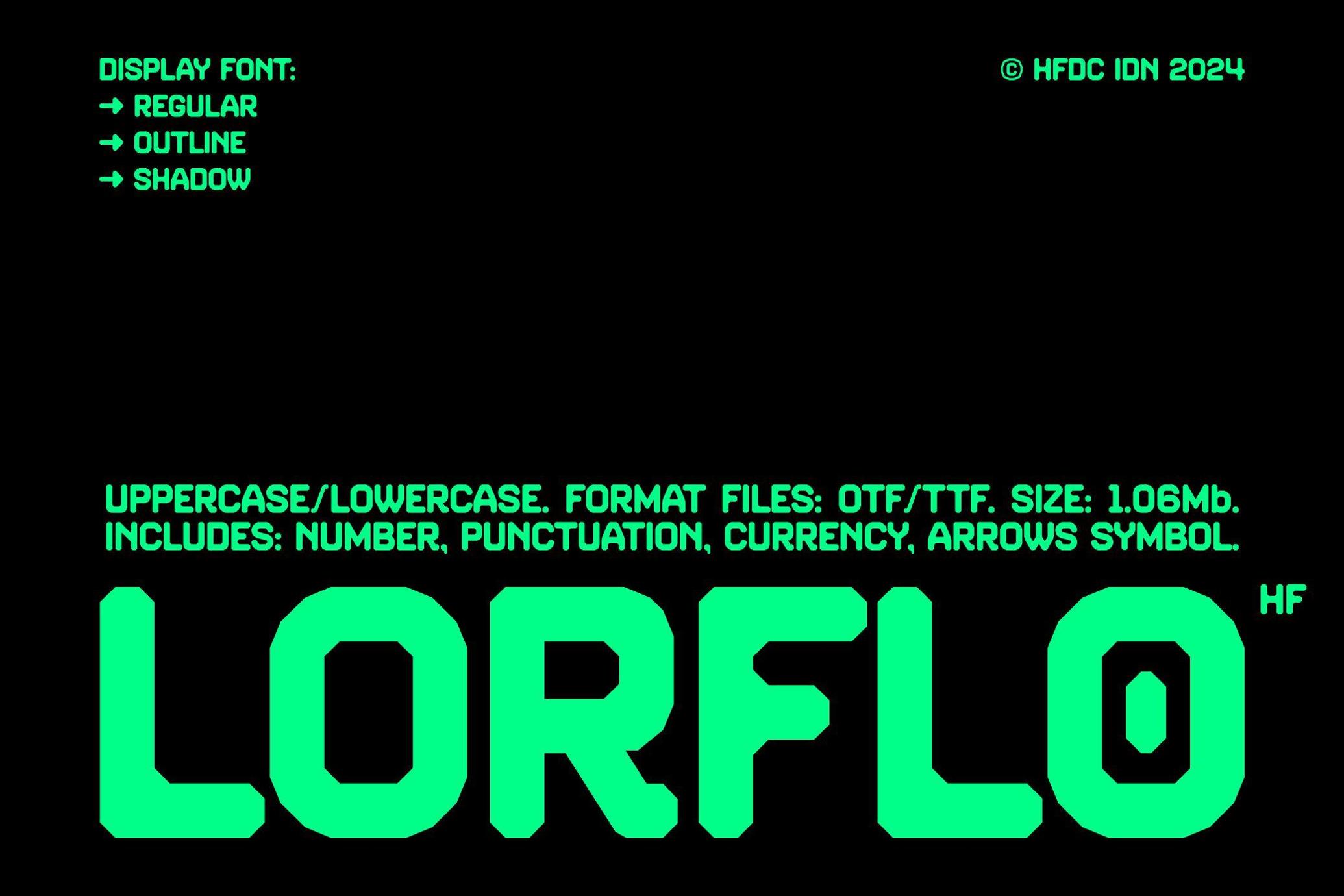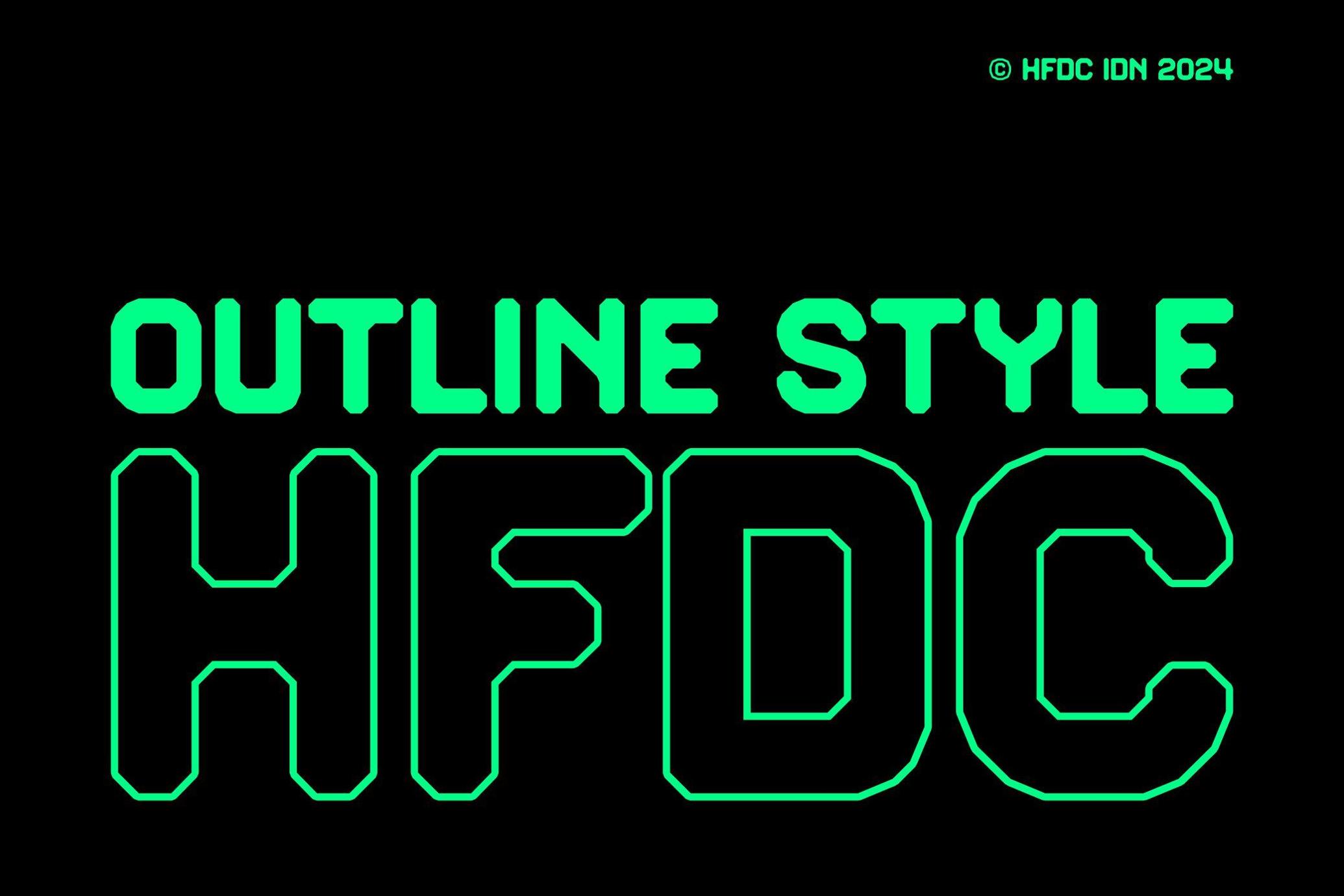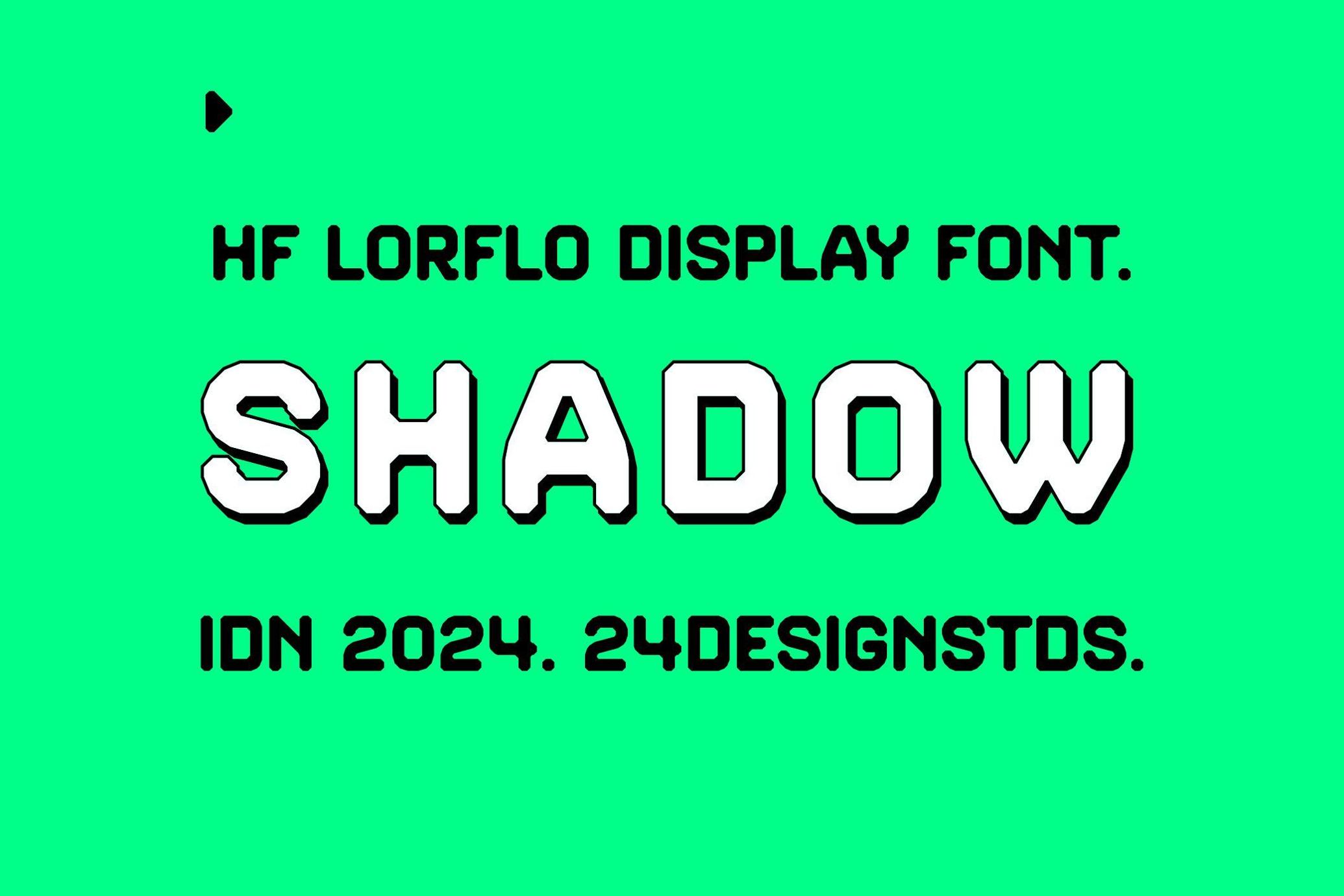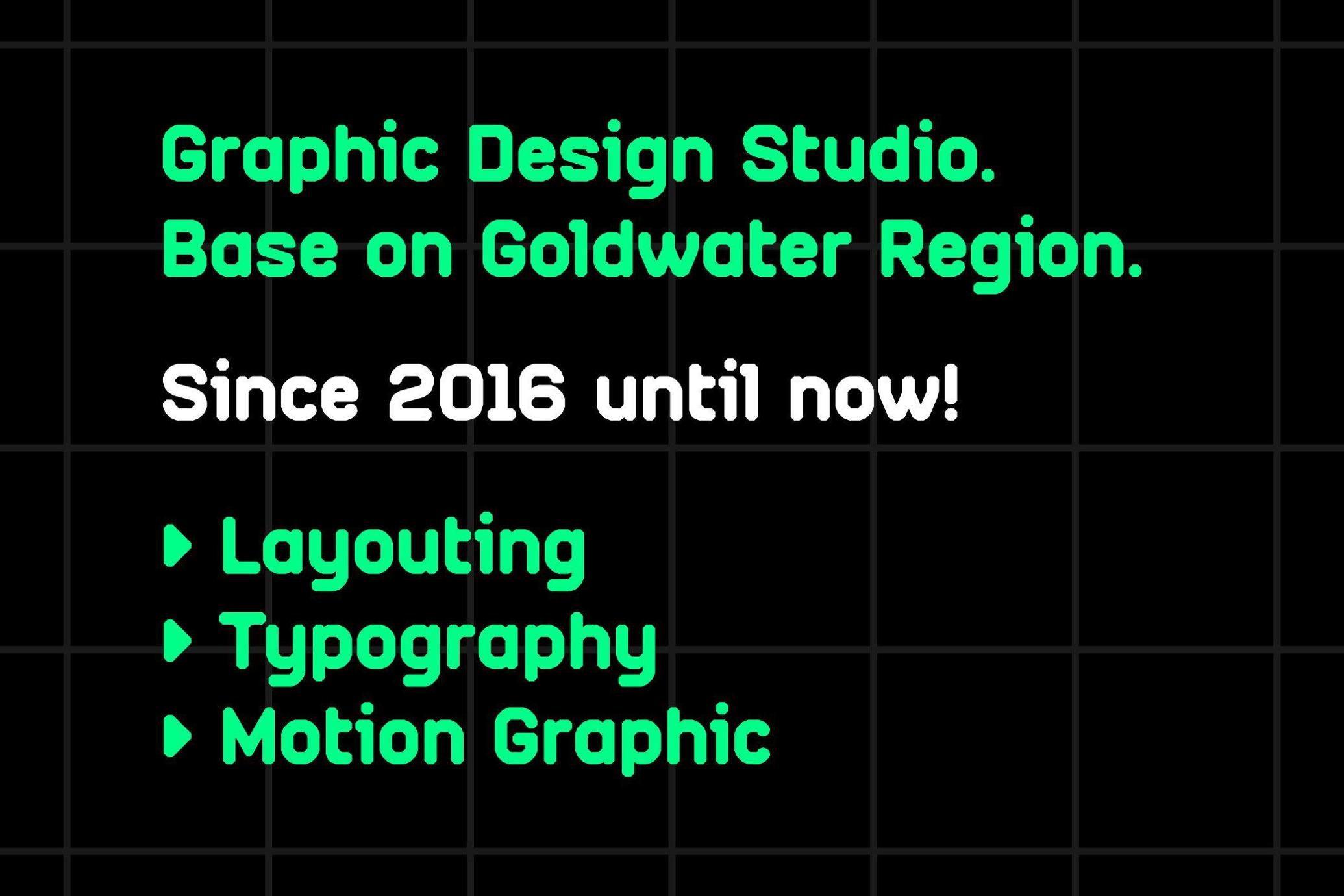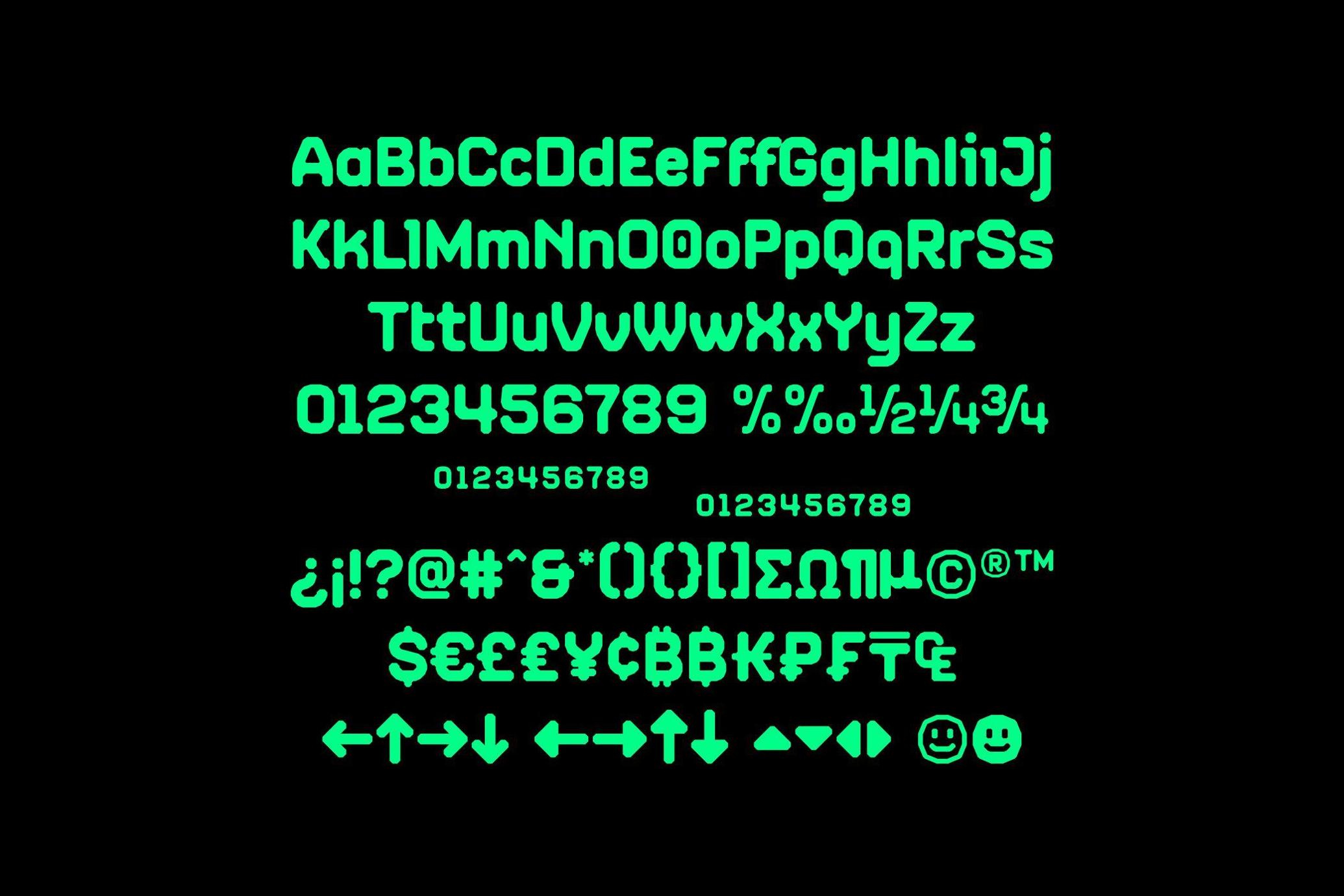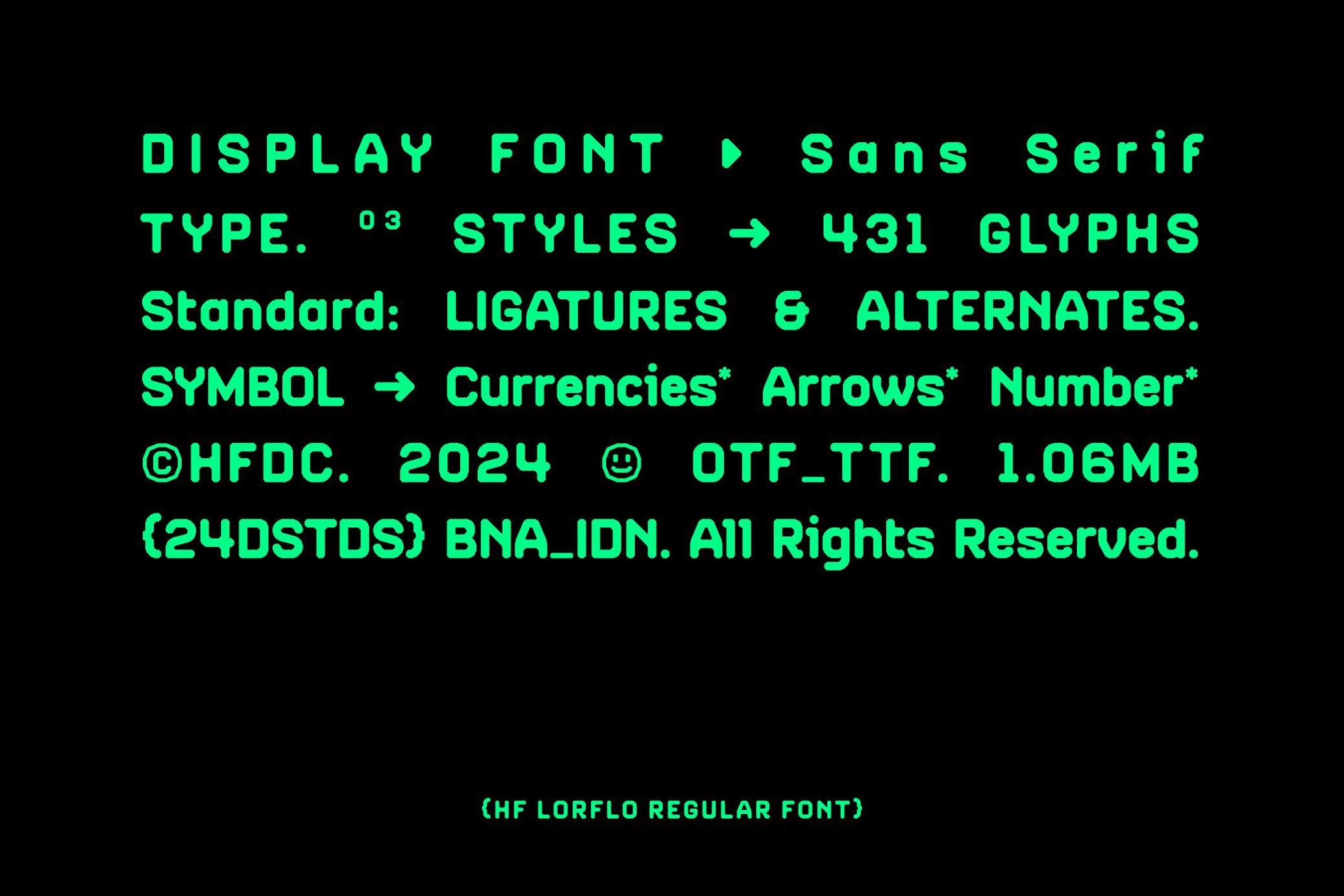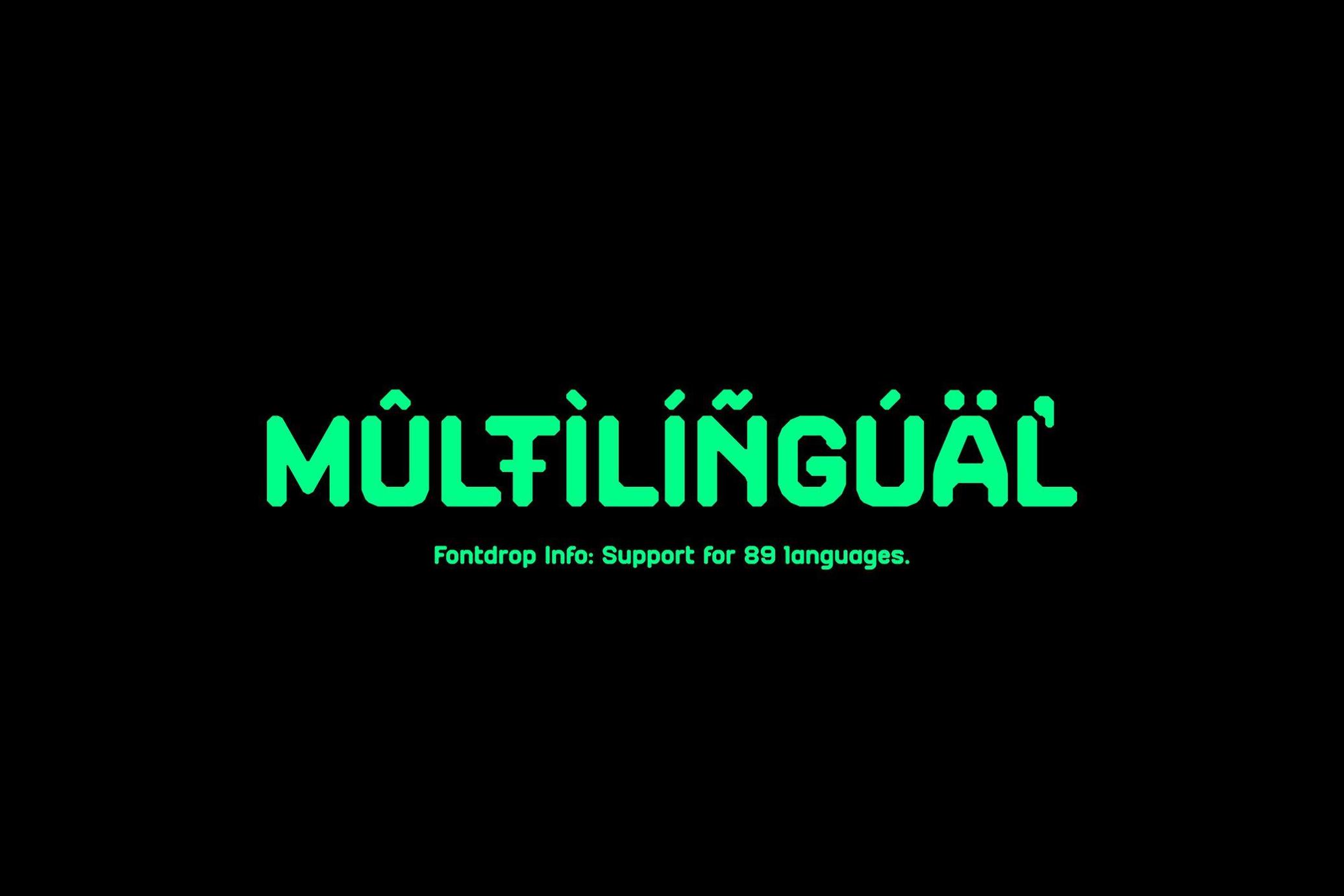
HF Lorflo Display Font
Shadow
HF Lorflo is a geometric font that looks rounded at each corner, a font that is suitable for you to use as headlines, logos, content, etc. This font has 3 styles Regular, Outline, and Shadow with several alternates and ligatures.
- Upercase and lowercase
- Number
- Punctuation
- Currencies
- Arrows
- Alternates and ligatures